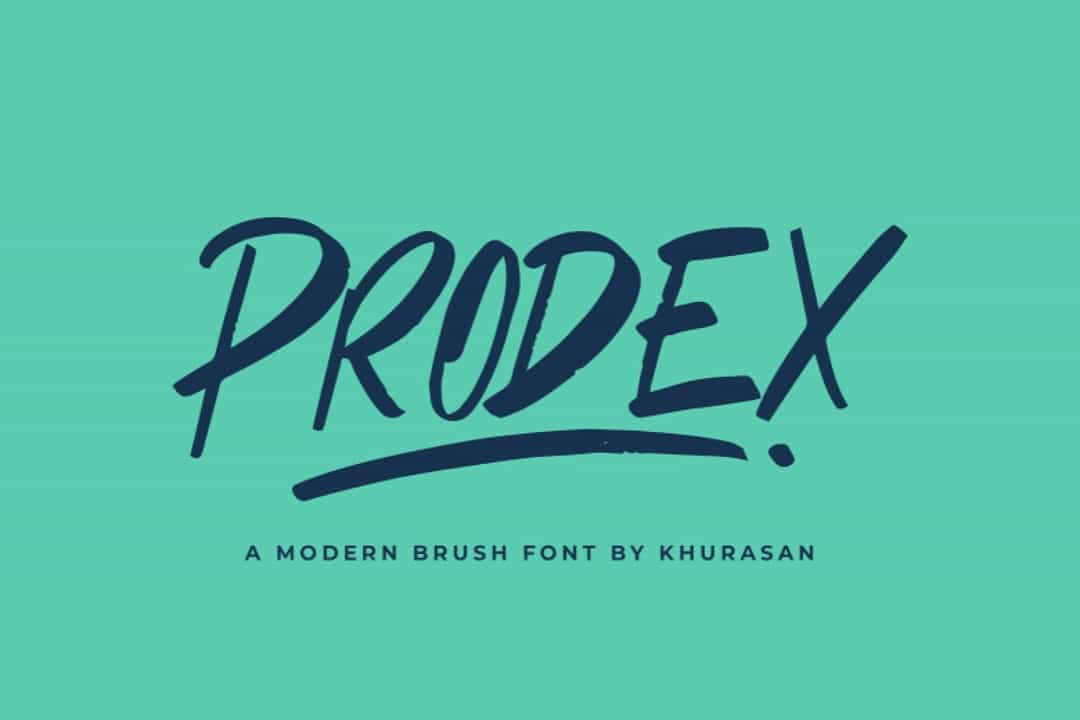
Prodex is a modern and bold brush typeface perfect for logos, posters, books, magazines books, banners book covers and so much more! Utilize this handwritten font and transform your designs with its distinctive handwritten script! Prodex complements an enormous range of designs perfectly so add it to your imaginative ideas to see how they stand out!